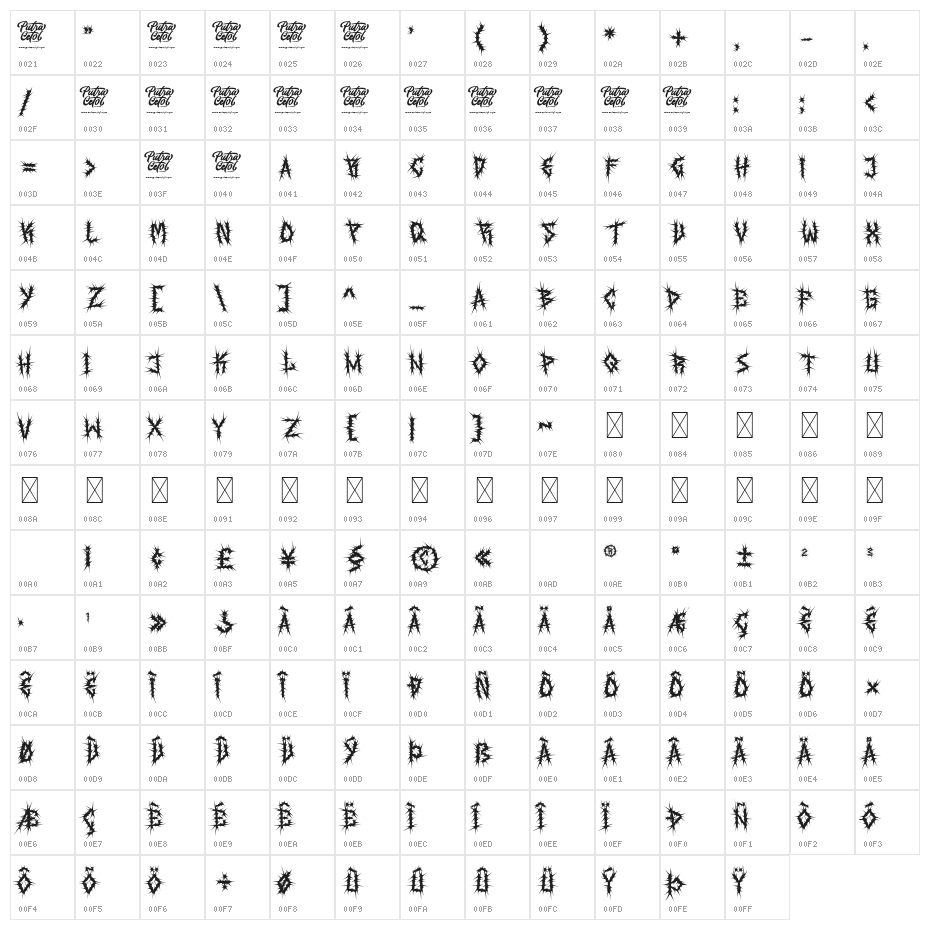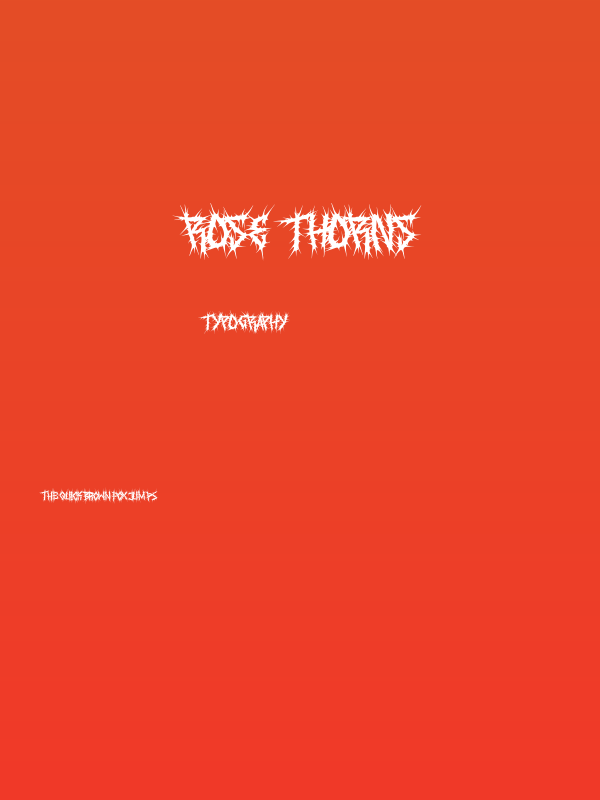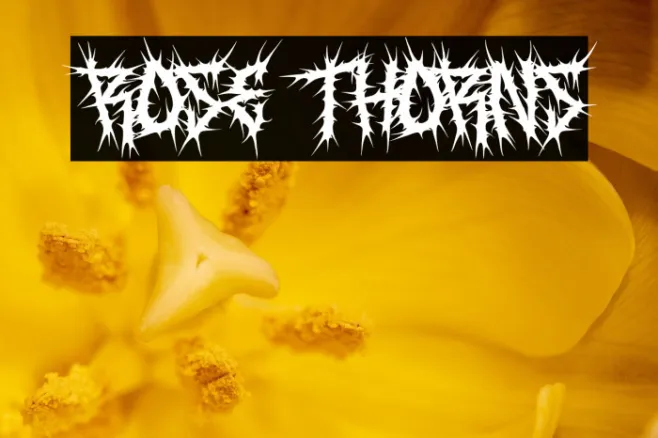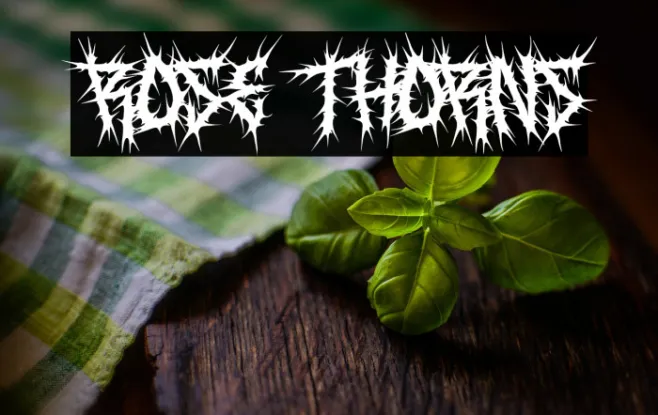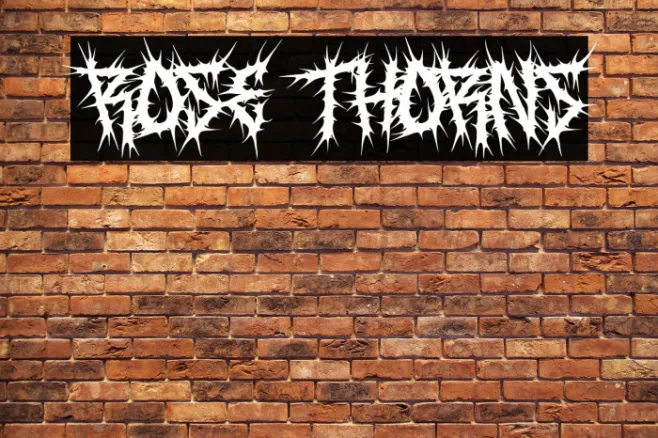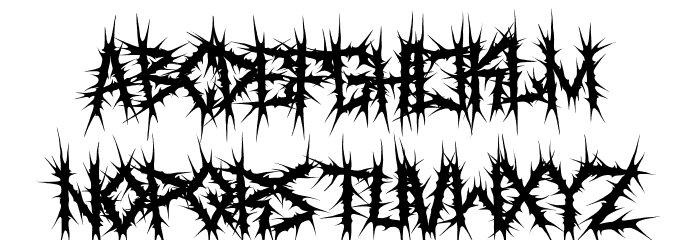
ROSE THORNS Font
ROSE THORNS Description
This font features an aggressive and edgy design, reminiscent of thorny vines or barbed wire. The characters are sharp and jagged, creating a sense of danger and intensity. The uppercase and lowercase letters maintain a consistent thorny theme, with each character appearing as if it is constructed from intertwined spikes. This style is highly decorative and visually striking, making it ideal for projects that require a bold and unconventional aesthetic. The font's unique appearance is suitable for themes related to horror, punk, or alternative culture, where a dramatic and eye-catching typeface is desired.
| Use Case | Logos, Posters, Album Covers |
| Proposed Projects | Ideal for horror-themed posters, punk rock album covers, or alternative fashion branding. |